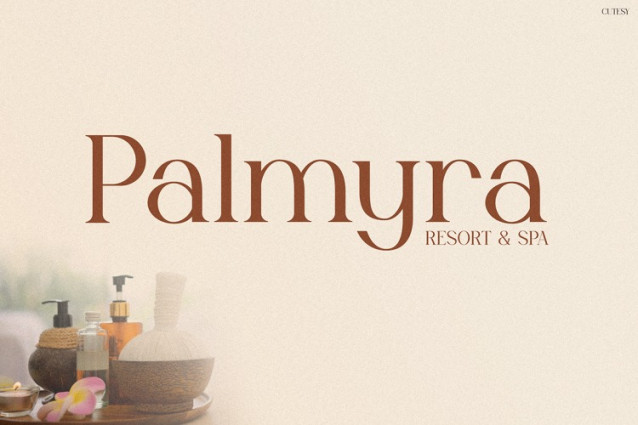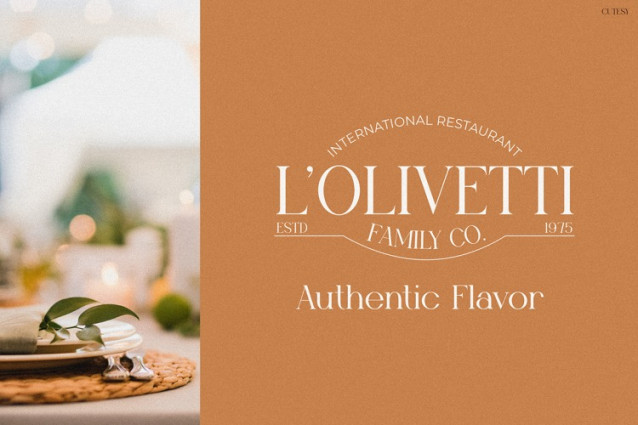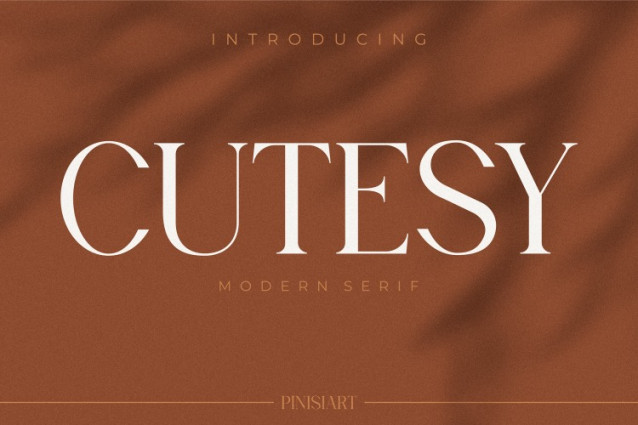
Cutesy Font
Cutesy Font is a stylish typeface that blends modern elegance with vintage charm. As a result, it instantly elevates any visual project. Whether you’re designing for fashion, jewelry, or lifestyle brands, this font brings a sense of luxury and warmth. Its sharp serifs and soft curves create a perfect balance between sophistication and approachability. Consequently, every word feels intentional and beautifully crafted and each word looks luxurious yet welcoming.
Moreover, Cutesy is tailored for visual platforms like Instagram. It stands out effortlessly in clean, minimal layouts. Not only does it grab attention, but it also maintains a refined and cohesive tone. Therefore, whether you’re announcing a product launch, highlighting a special discount, or introducing a premium collection, this font makes your message look polished and compelling, It adds an editorial, high-fashion look to your message.